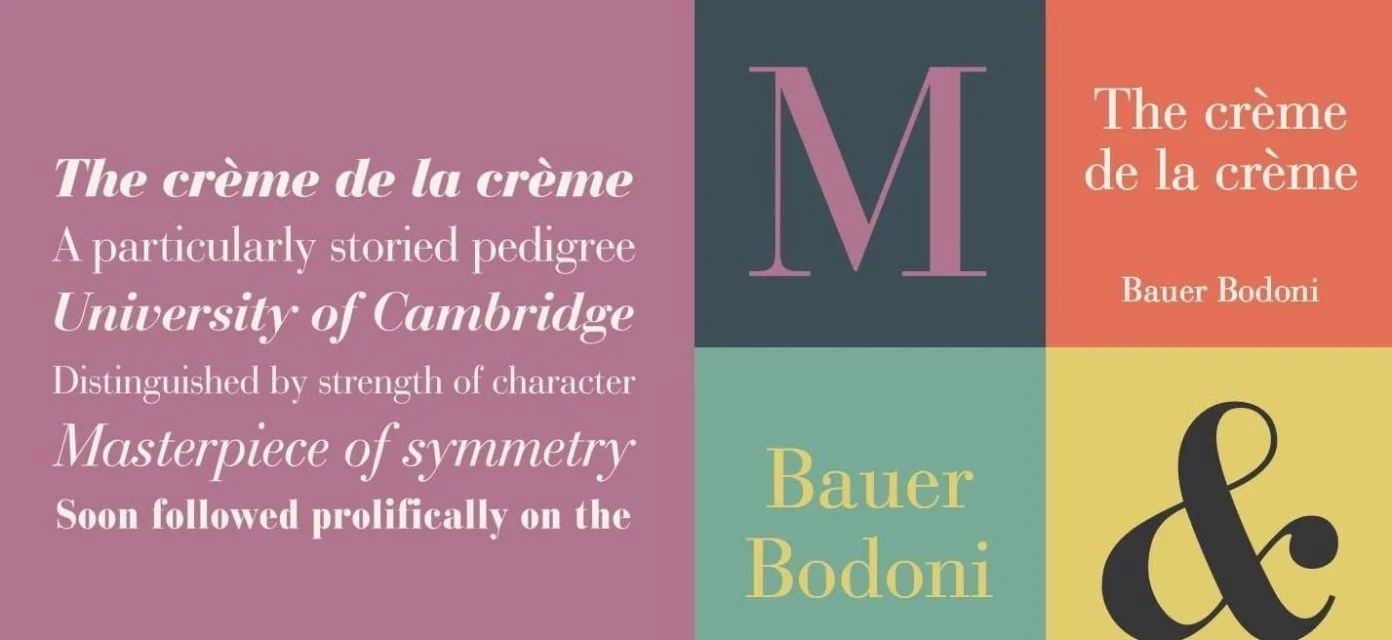
Bauer Bodoni Font is perfect for luxury fashion branding, high-end editorial designs, elegant magazine layouts, sophisticated logos, premium cosmetic packaging, upscale restaurant menus, classical music posters, art gallery materials, fine jewelry branding, formal invitations, prestigious corporate identities, and any design project requiring timeless elegance and refinement.
What makes Bauer Bodoni Font exciting is its classical beauty rooted in centuries of typographic excellence and refined craftsmanship. The font's dramatic contrast between thick and thin strokes creates striking visual elegance, making it ideal for luxury brands seeking to convey sophistication and prestige. Its timeless character has graced countless iconic designs, offering designers a proven foundation for creating memorable and distinguished visual communications that stand the test of time.
The Bauer Bodoni Font family typically includes multiple weights, roman and italic styles, uppercase and lowercase characters, numerals, punctuation marks, and refined ligatures that enhance its classical elegance.
Looking for the Bauer Bodoni Font Free Download? This iconic typeface represents the pinnacle of classical typography, combining historical significance with enduring contemporary relevance. Whether you're creating luxury brand identities, elegant editorial spreads, or sophisticated marketing materials, this font delivers the timeless refinement and aristocratic beauty needed to communicate exclusivity and impeccable taste across all design applications.